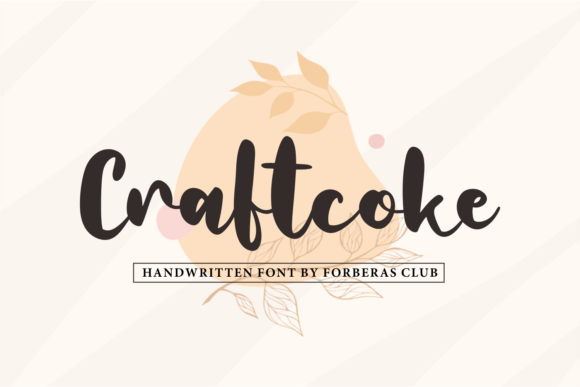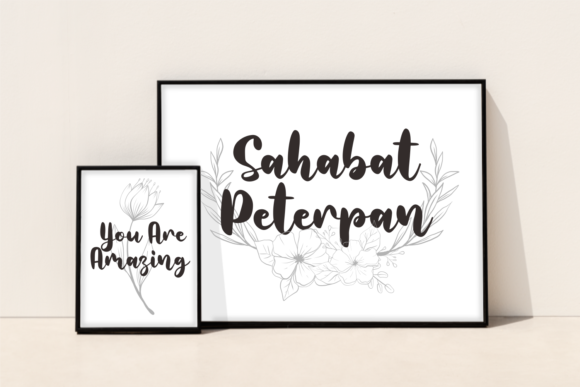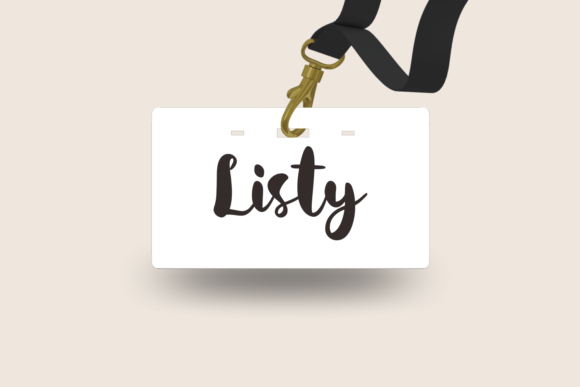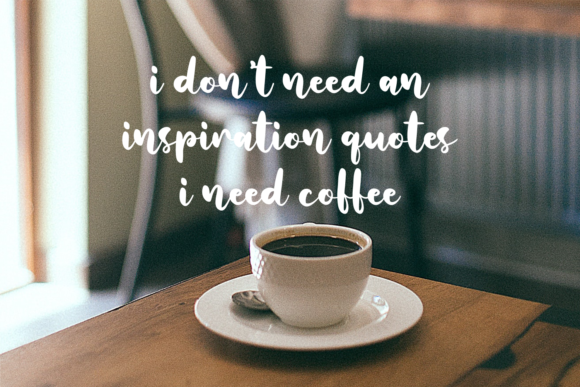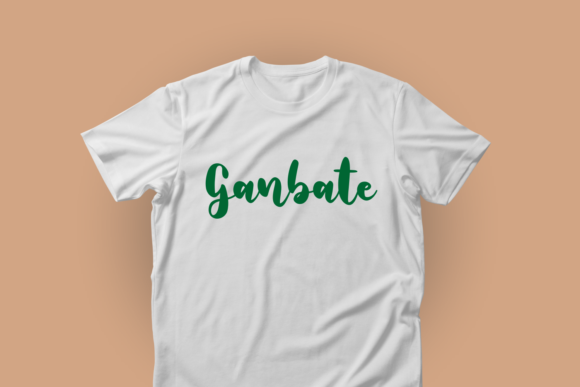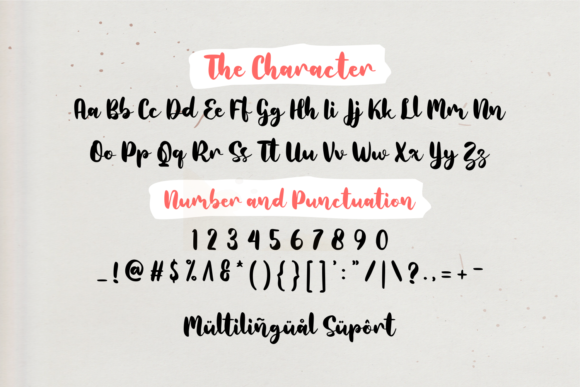
Craftcoke Font
About Craftcoke Font
Craftcoke is a fancy and chic handcrafted font, created to impress your audience and make your branding shine.
Make your projects dance with this elegant and wonderful font. Use it for headings, logos, ads, printed quotes, packaging, and even your website or social media branding.